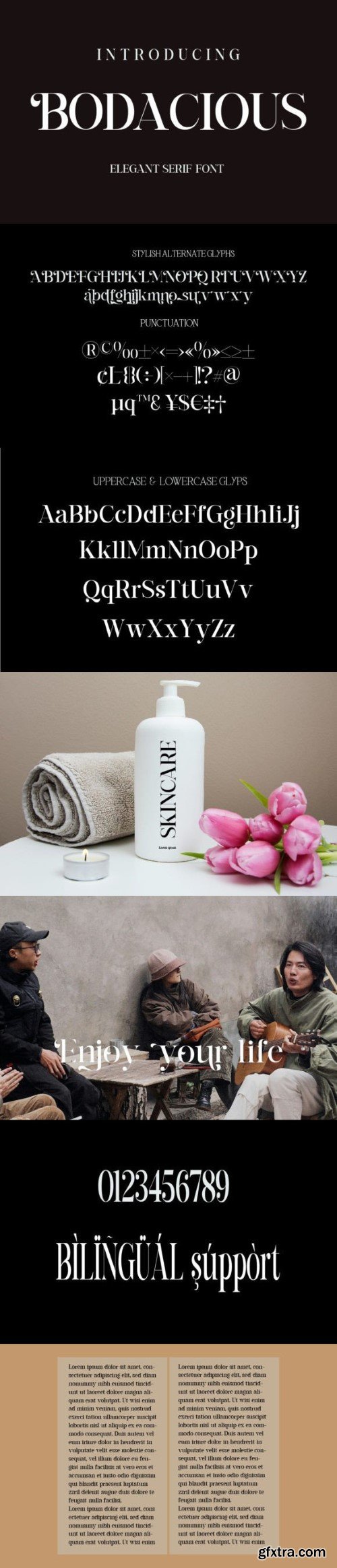
Introduction Bodacious font Duo is a modern and elegant serif font with stylish alternate glyphs and ligatures, These design elements offer a playground for creativity, allowing you to customize and tailor your text to evoke different moods and styles. Whether you’re looking for a classic look or something more whimsical, Bodacious font provides the tools to bring your vision to life.
This font is not just a static typeface; it’s a dynamic expression of your design narrative. Bodacious is perfect for editorial design, branding, invitations, or any project where the a seamless integration of modernity and classics.
Change your designs to more modern and elegant with a Bodacious font.